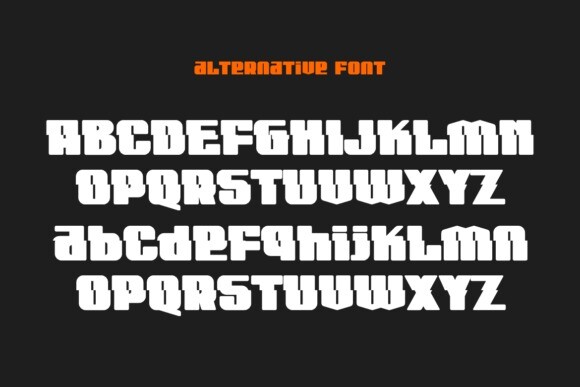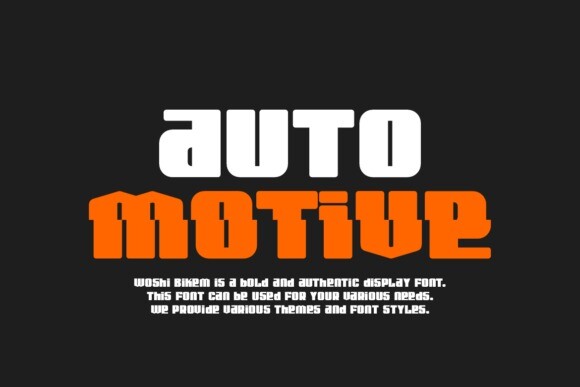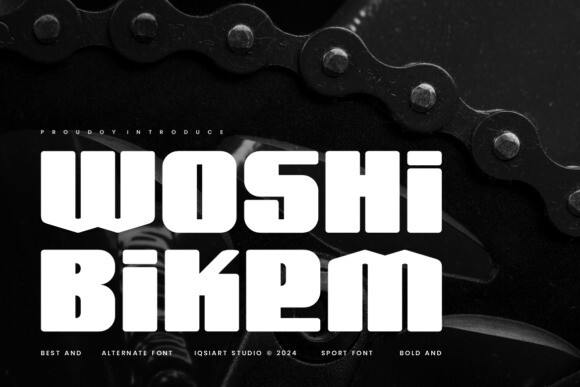
Woshi Bikem Font
Designer: IqsiartStudio
Woshi Bikem Font is a bold and strong sports font. It has thick letters that stand out, making it perfect for sports logos, team names, or anything that needs a powerful look. The style feels energetic and modern, giving designs a fast and active feel.